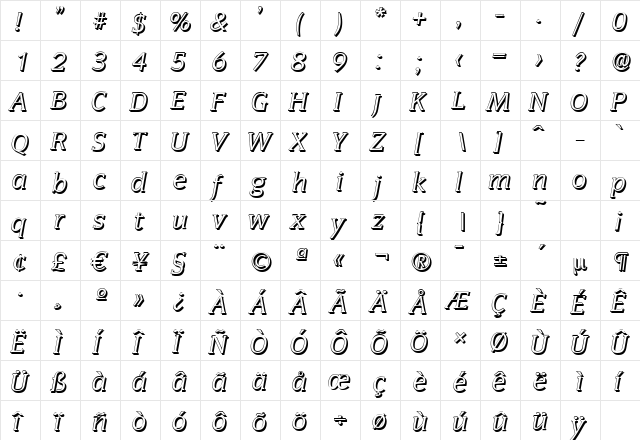
CongressShadow Italic Font Preview
CongressShadow Italic
CongressShadow Italic Font Details
Design Context for CongressShadow Typeface
CongressShadow is built around its visual character rather than neutral utility — its distinctive forms are designed to make an impression at display sizes. Its italic angle brings a sense of urgency and motion to the letterforms.
Font Pairing: Pair with a clean neutral sans-serif for body copy to let CongressShadow's character lead without overwhelming the composition.
Pro Tip: Use CongressShadow exclusively at display sizes — it was designed to be seen, not read at length. Let a neutral companion handle body copy.